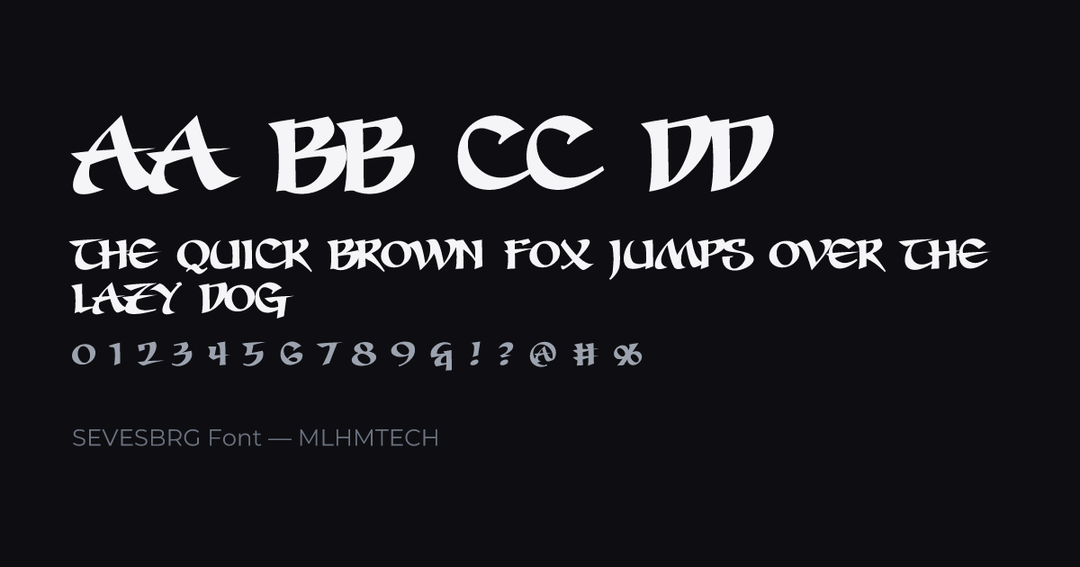
SEVESBRG Font
SEVESBRG is an elegant serif font ideal for branding, logos, and editorial projects. Includes TTF file.
SEVESBRG is a sophisticated serif typeface that combines classic elegance with modern versatility. Its refined letterforms and balanced proportions make it perfect for a wide range of design applications, from branding and logos to editorial layouts and packaging.